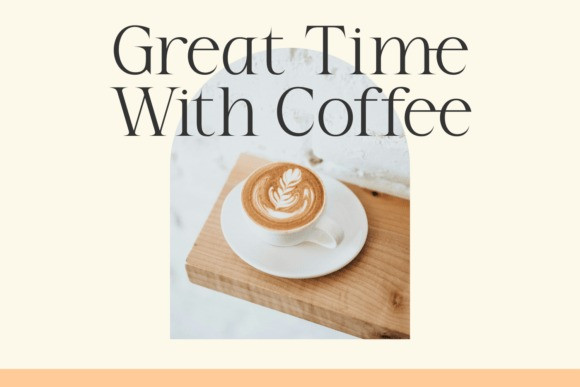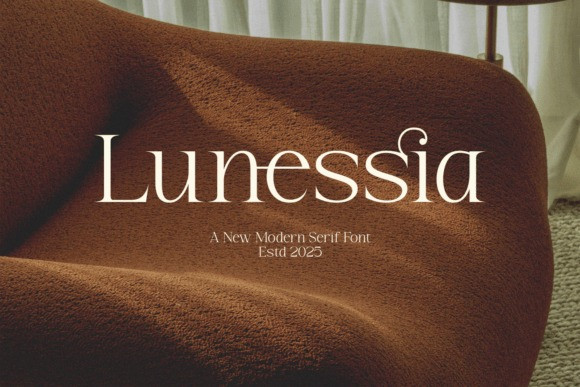
Lunessia Font
Lunessia Font a new modern serif font from the year 2025. The warm and sophisticated interior setting perfectly complements the font’s chic and comfortable aesthetic.